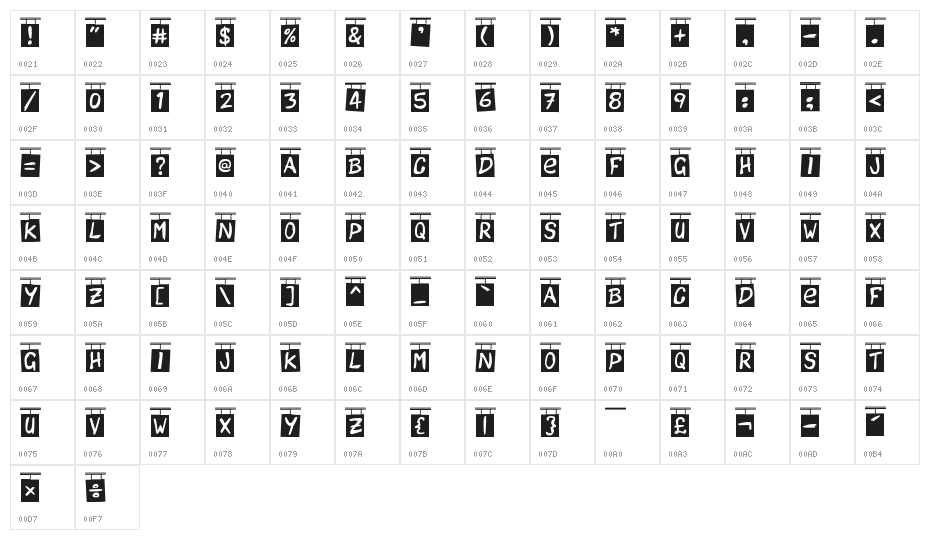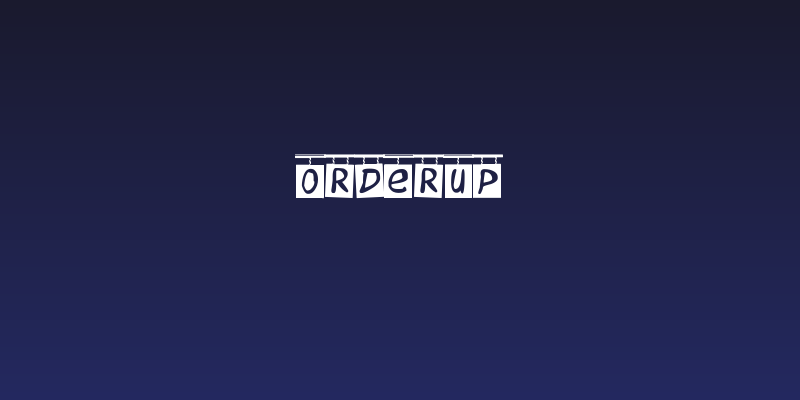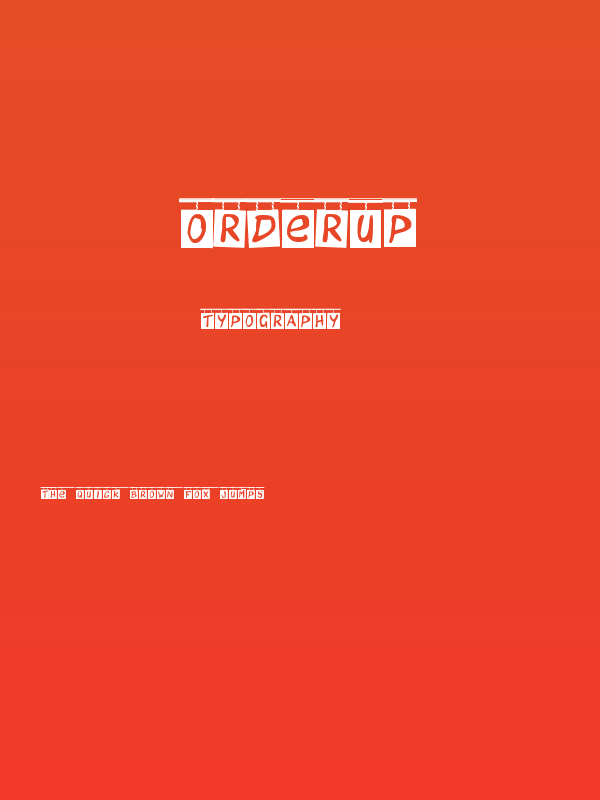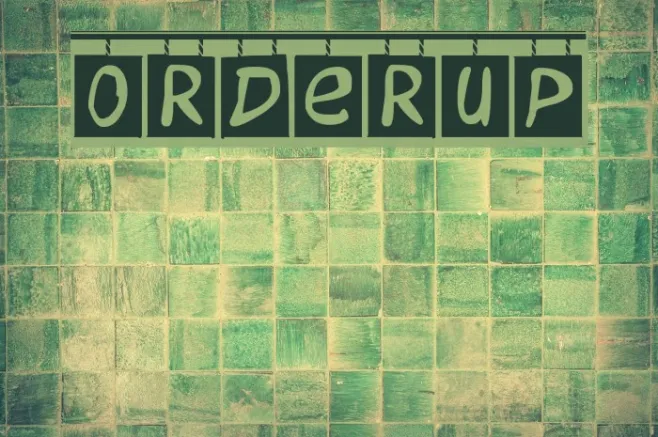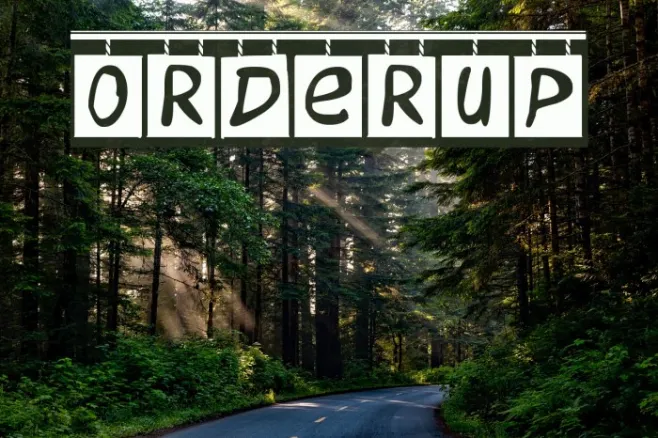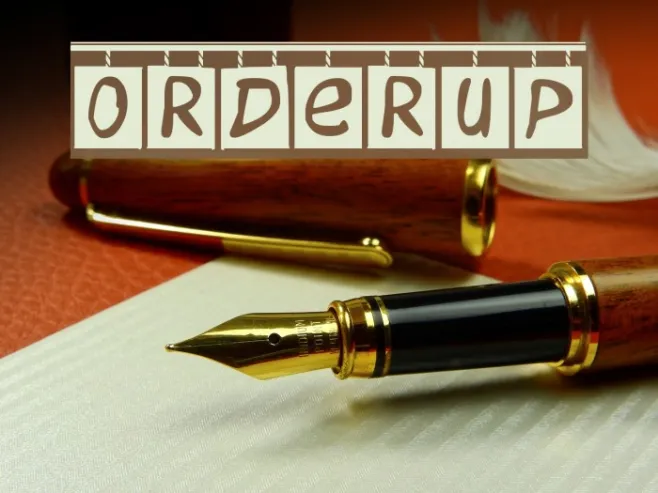
OrderUp Font
OrderUp Description
This font features a playful and casual style, reminiscent of handwritten chalkboard lettering. Each character is enclosed in a black square, giving it a unique and bold appearance. The letters are slightly tilted and irregular, adding to the informal and friendly vibe. The uppercase and lowercase letters maintain a consistent style, with rounded edges and varying stroke thickness, which adds a dynamic and lively feel. The numbers and special characters follow the same design, ensuring uniformity across all elements. This font is ideal for projects that require a fun and approachable aesthetic.
ORDERUP UPPERCASE
ORDERUP LOWERCASE
ORDERUP OTHER CHARS
| Overall Style | Playful, Casual |
| Proposed Projects | Ideal for children's books, educational materials, cafe menus, and playful branding. |